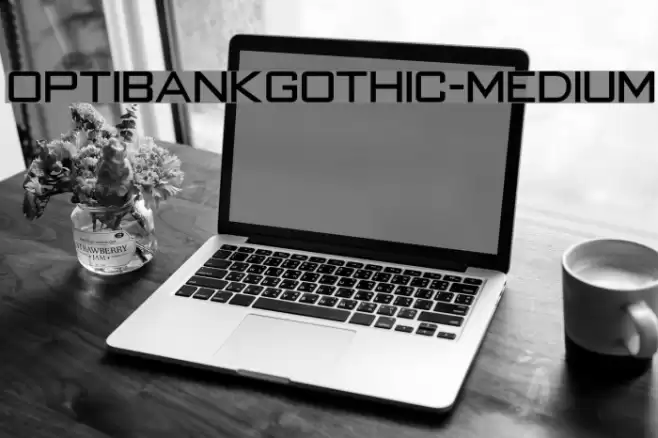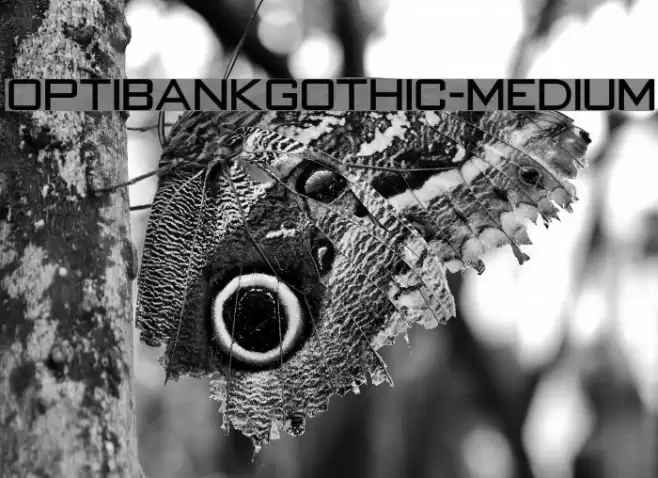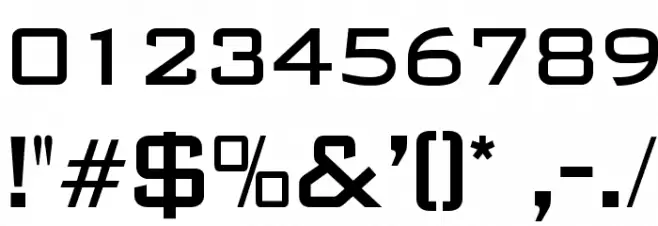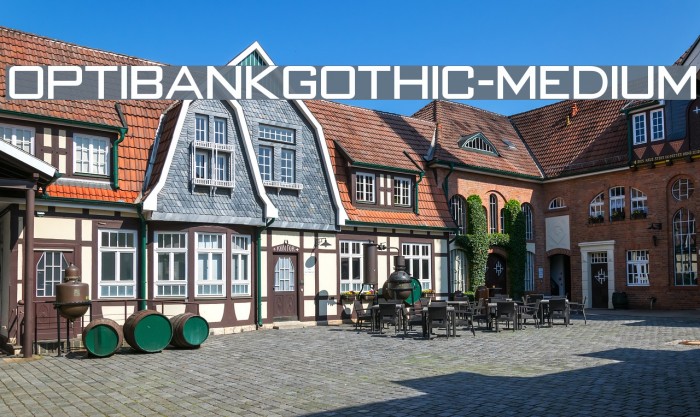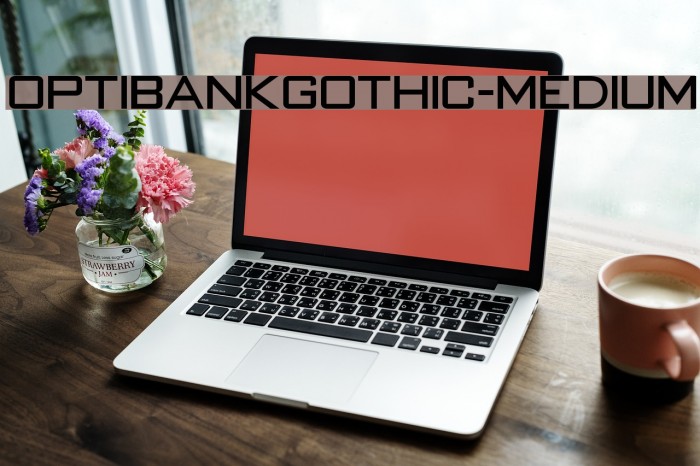
OPTIBankGothic-Medium Font
OPTIBankGothic-Medium Description
This font exhibits a modern, geometric style with clean, straight lines and a uniform structure. The characters are bold and have a consistent stroke width, giving them a strong and impactful appearance. The uppercase letters are particularly angular, with sharp edges and a futuristic feel. The lowercase letters maintain the same geometric precision, ensuring readability and a cohesive look. Numbers and special characters follow the same design principles, making them easily distinguishable and visually appealing. The overall design is sleek and professional, suitable for various digital and print applications.
A modern, geometric font with bold, angular characters and a sleek appearance from Uncategorized fonts.
- Proposed Projects: Ideal for technology branding, futuristic designs, digital interfaces, and modern advertising.
- Use Case: Headlines, Logos, Digital interfaces